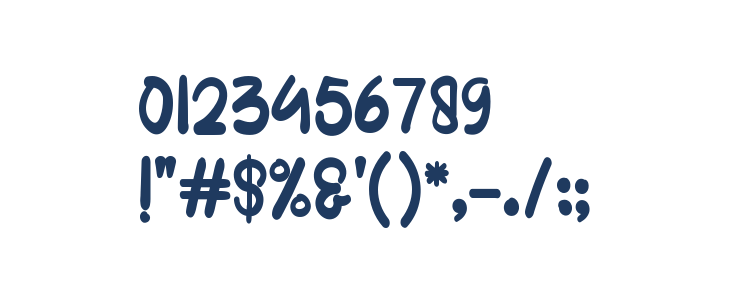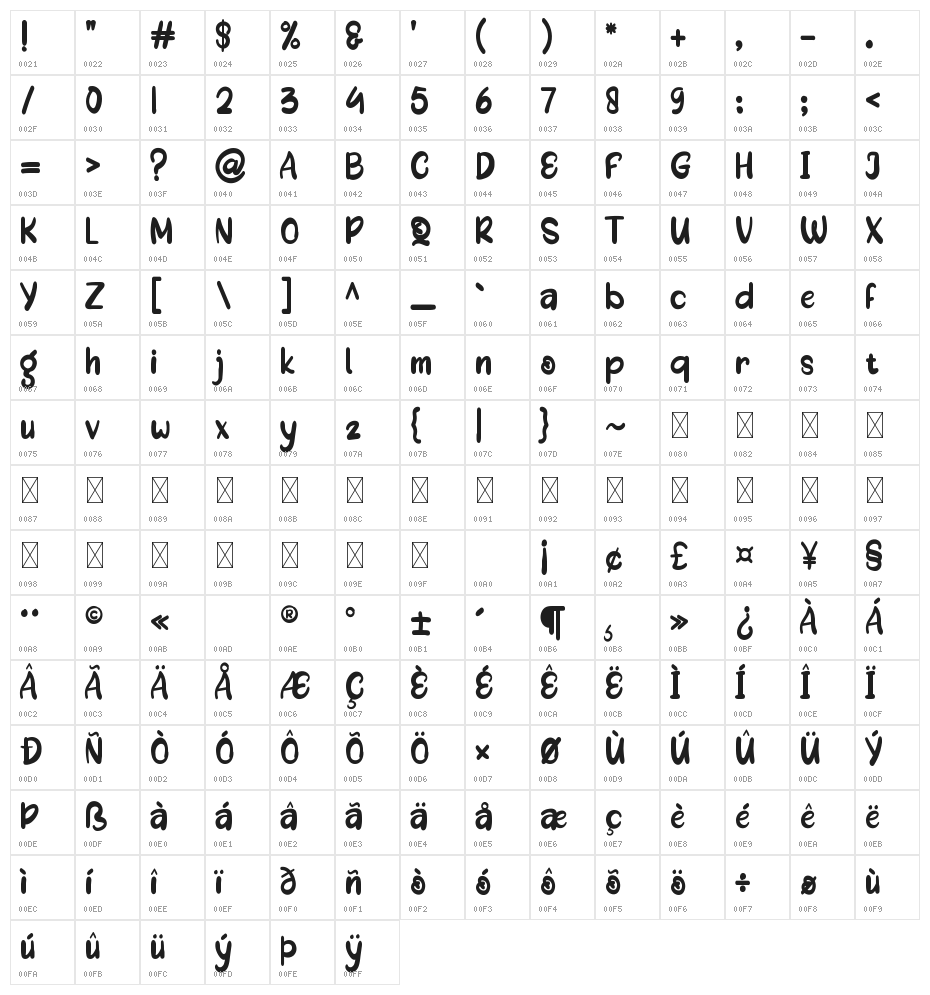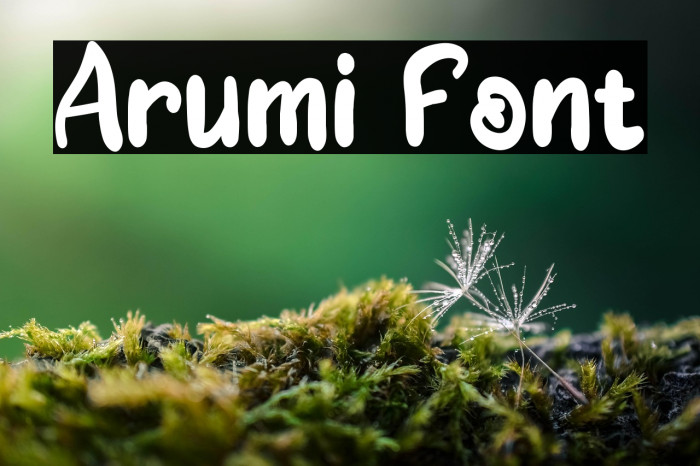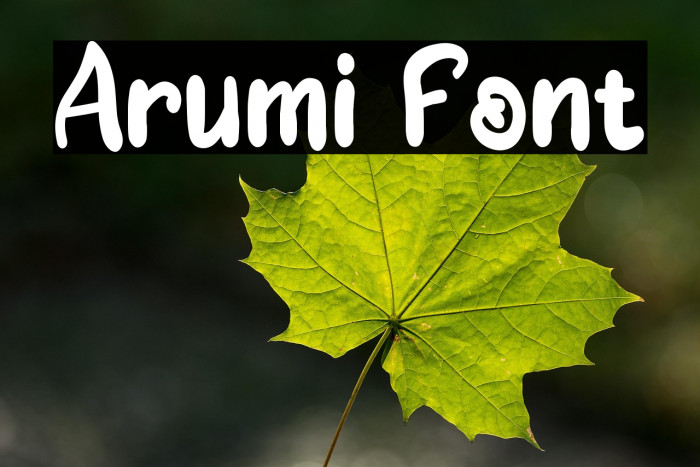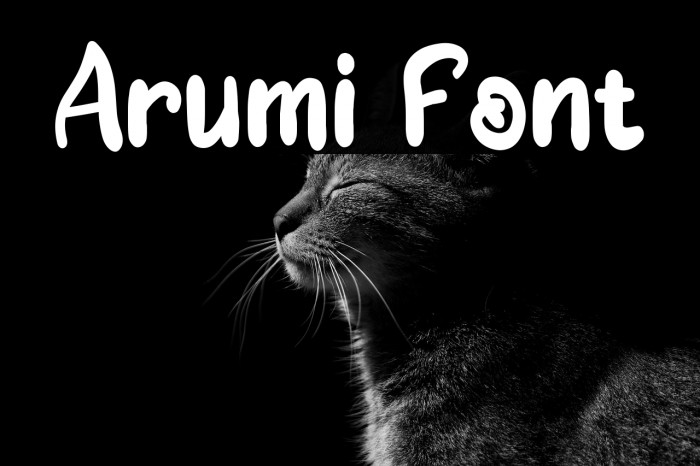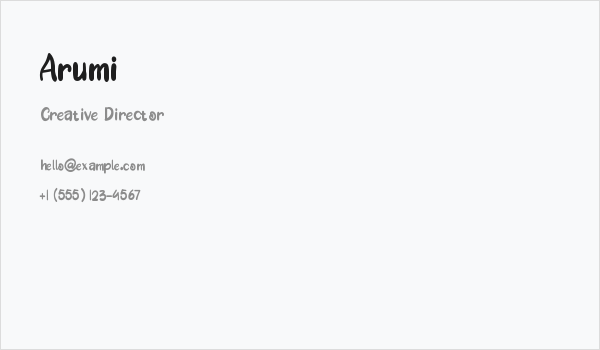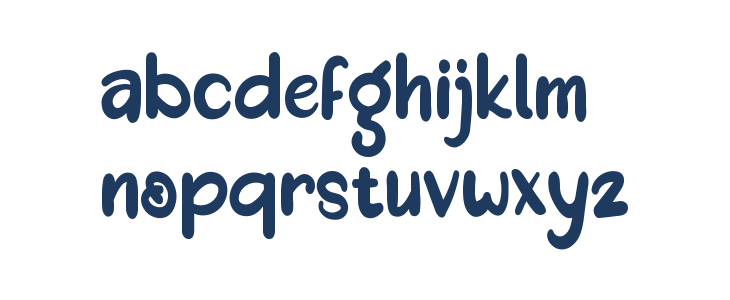
Arumi Font
Arumi Description
This font features a playful and bold design with rounded edges and a hand-drawn aesthetic. The characters are thick and have a consistent stroke width, giving them a strong presence on the page. The uppercase and lowercase letters maintain a uniform style, with slight variations that add to the font's charm. Numbers and special characters are included, matching the overall whimsical style. The font's informal and friendly appearance makes it suitable for creative and casual projects.
| Proposed Projects | Ideal for children's books, playful branding, greeting cards, and creative posters. |